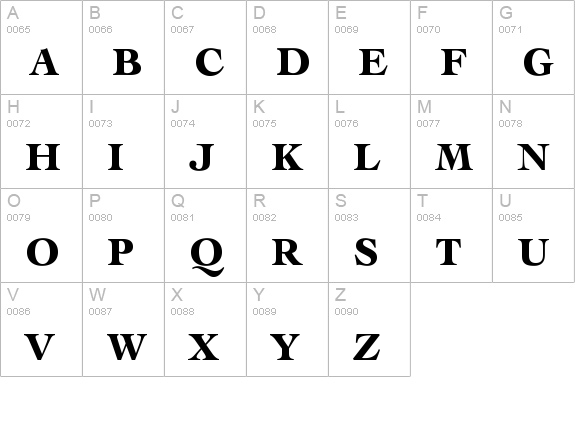
Engravers' Oldstyle 205 Black is a maximum-weight, dramatic variant in the Engravers' typeface family \xE2\x80\x94 well suited to maximum-impact headlines, posters, and packaging.
Engravers' Oldstyle 205 Black font exudes elegance and sophistication with its timeless design. The bold weight of this classic typeface commands attention while maintaining a sense of refinement. The sharp serifs and intricate details give Engravers' Oldstyle 205 Black a unique charm that is perfect for adding a touch of sophistication to any project. And the best part? This exquisite font is available for free download at FontsMarket.com. Whether you're working on a formal invitation, a luxury branding project, or a refined editorial design, Engravers' Oldstyle 205 Black is a versatile choice that will elevate your work to new heights. Get your hands on this stunning font today and add a touch of classic elegance to your designs.